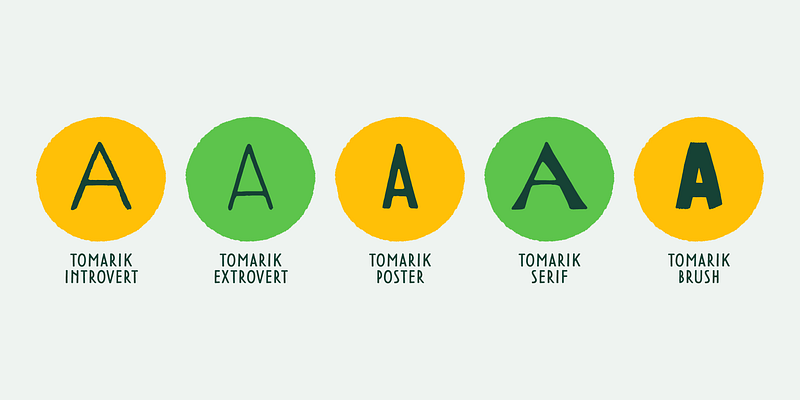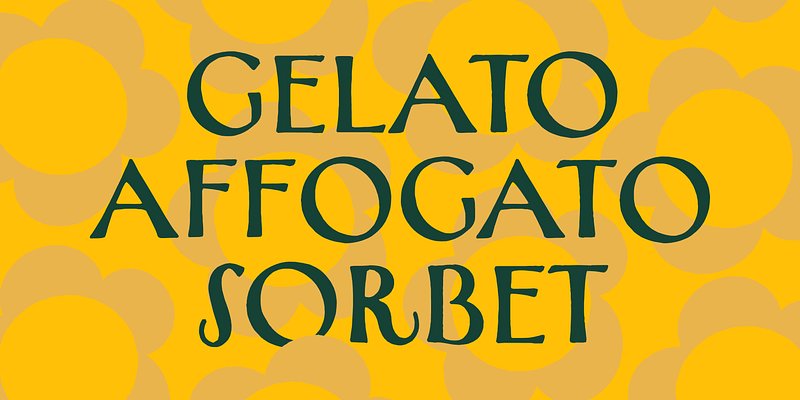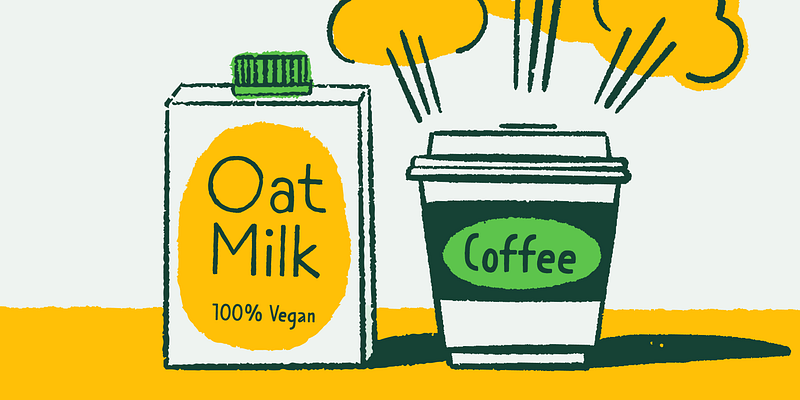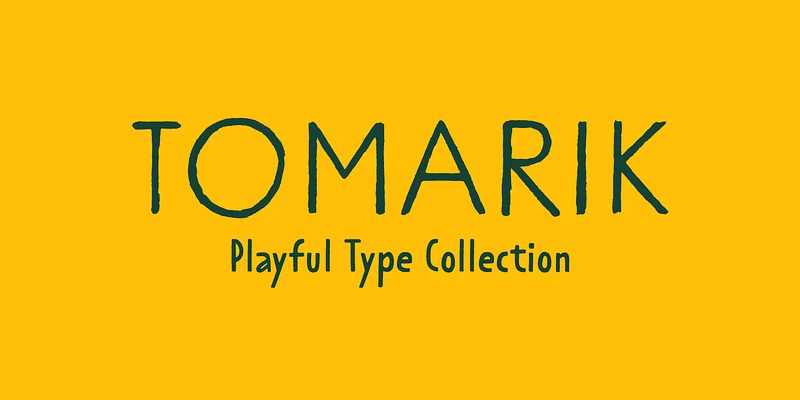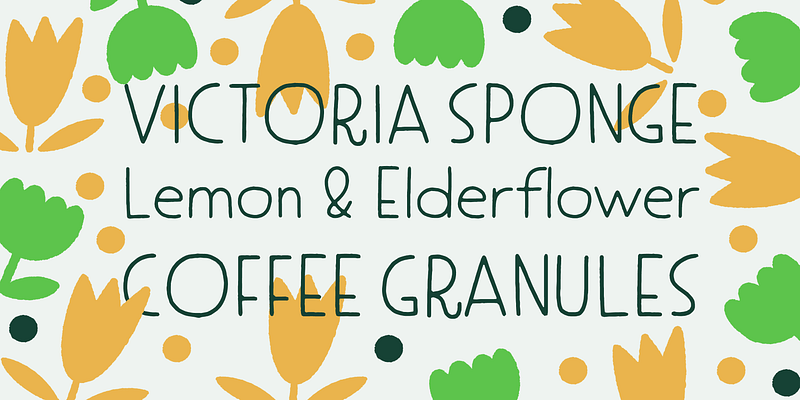
Tomarik is a vibrant hand-drawn type collection and a playful addition to any creative depository. Assembled with the “pick-and-mix” idea in mind, it offers a great variety of flavour and zest. Tomarik features five distinctive weights and includes OpenType features such as fractions, inferiors and superiors.